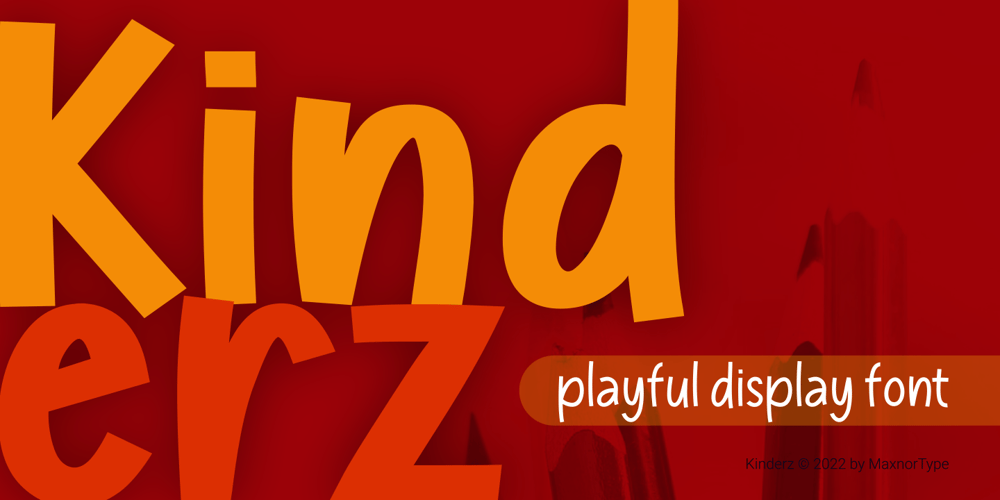
Kinderz Font Family was designed by Ahmad N. and published by MaxnorType. Kinderz contains 6 styles and family package options. Kinderz is a fun display font with lots of styles and multilingual support.The design has a relaxed feel and is intended for purposes related to kids and teenagers, but can also be used for all modern informal themed designs.It can be used for various purposes, especially those related to kids and teenagers, such as for logo design, branding, posters, banners, stationery, and so on.